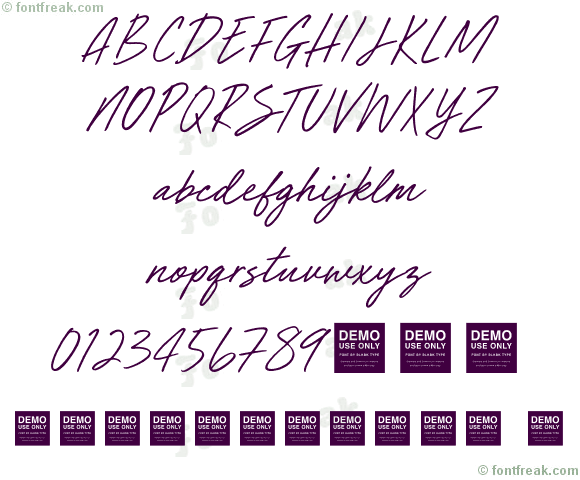
Simulate Minds
About Simulate Minds
Simulate Minds is an elegant script font designed by BLKBK Fonts, characterized by its fluid strokes and graceful curves. This font falls into the category of handwritten styles, offering a personal touch that makes it ideal for various creative applications. With a moderate stroke weight and a balanced contrast, the letters flow seamlessly, providing a sense of warmth and approachability. The spacing between characters is comfortably generous, enhancing readability while maintaining a stylish aesthetic.
This font is particularly well-suited for a range of use cases, including wedding invitations, where its romantic flair can help set the perfect tone. It also shines in branding projects, offering a unique identity for small businesses, especially in the artisanal and boutique sectors. Restaurant menus can benefit from its charming appearance, attracting customers with a visually appealing presentation of their offerings. Additionally, Simulate Minds is an excellent choice for social media graphics, where content creators can leverage its distinctive style to enhance engagement and capture attention.
The target audience for the Simulate Minds font includes graphic designers seeking to elevate their projects, small business owners looking for a memorable branding solution, and content creators who want to add a personal touch to their digital content.